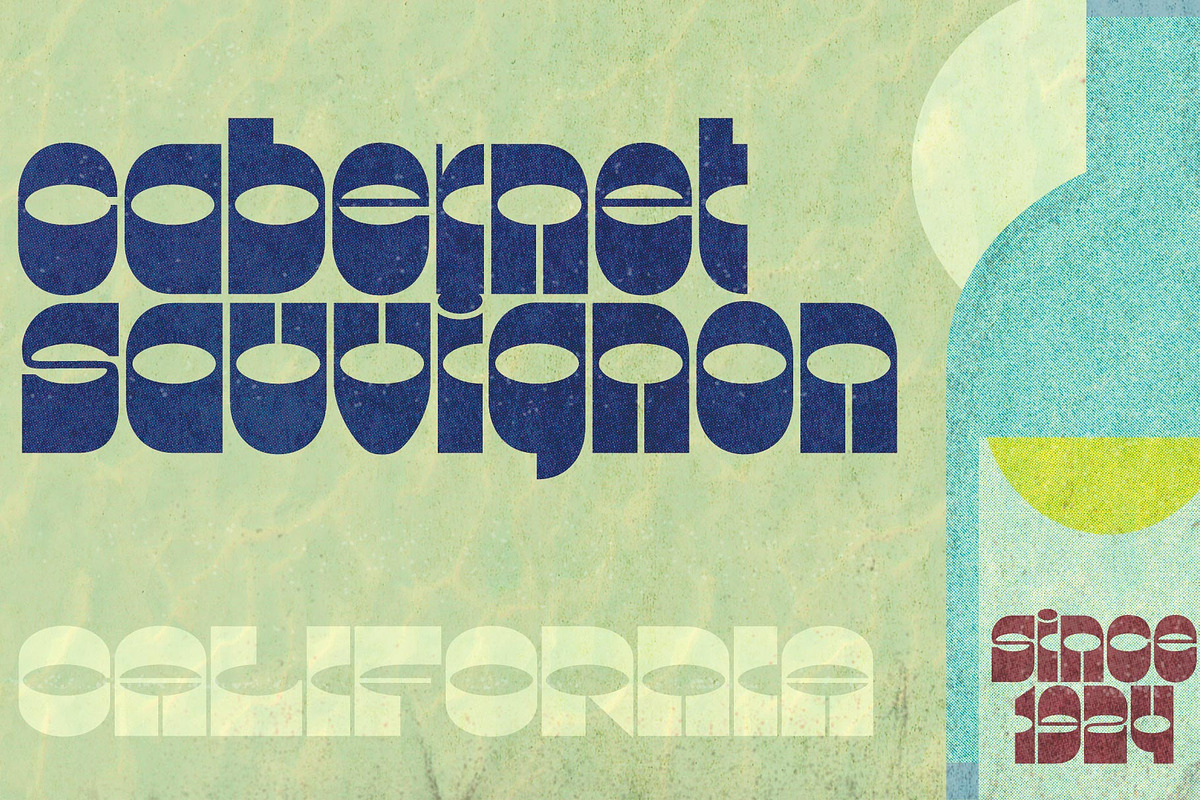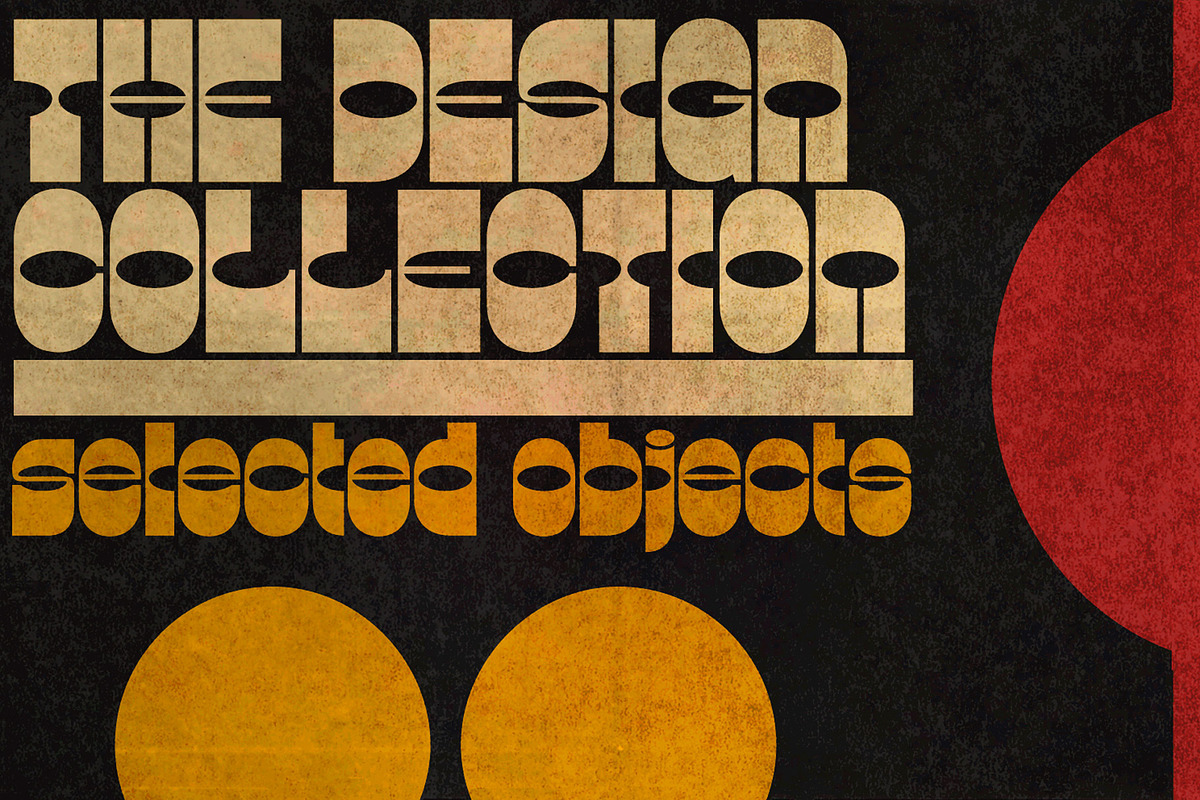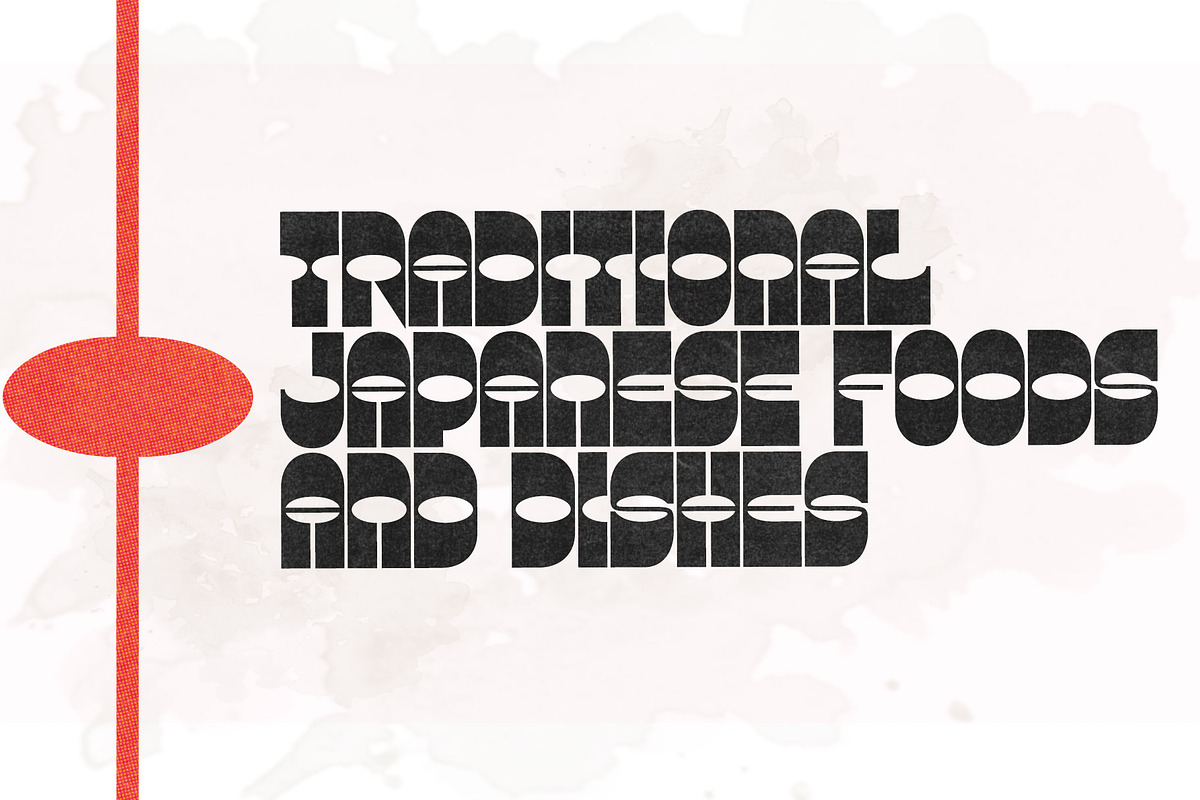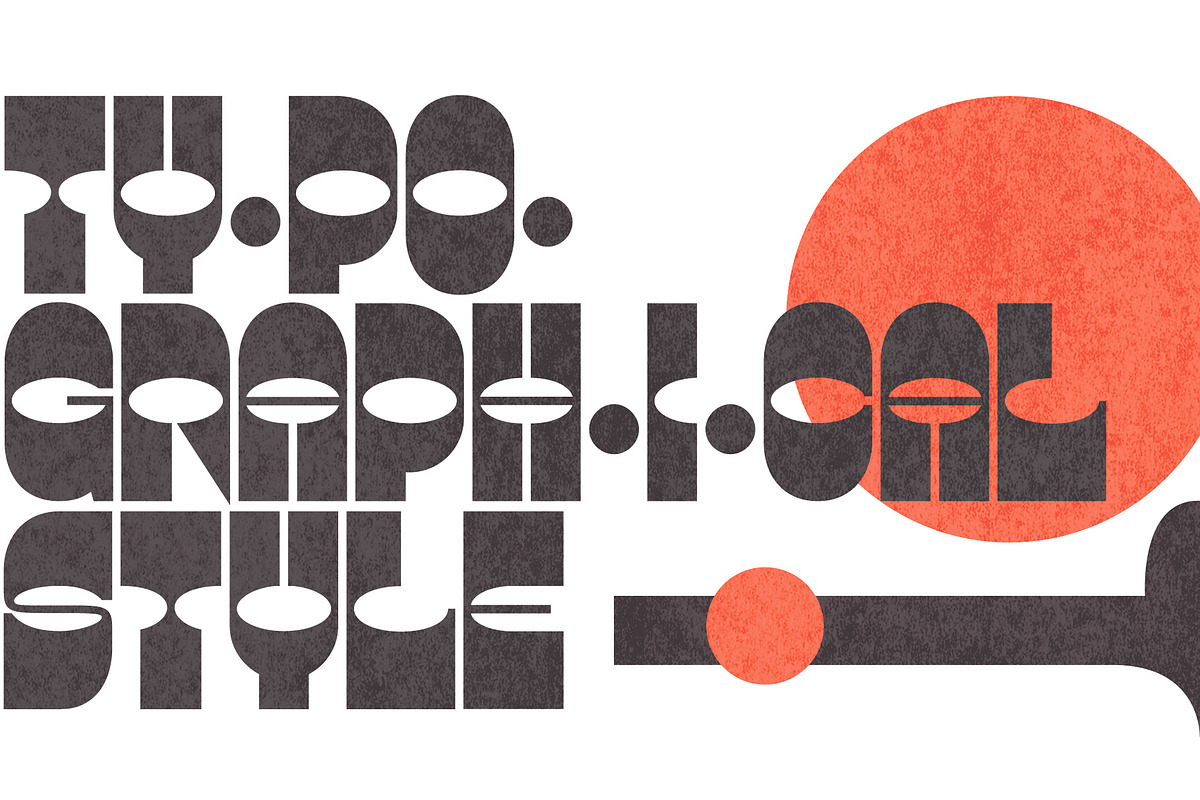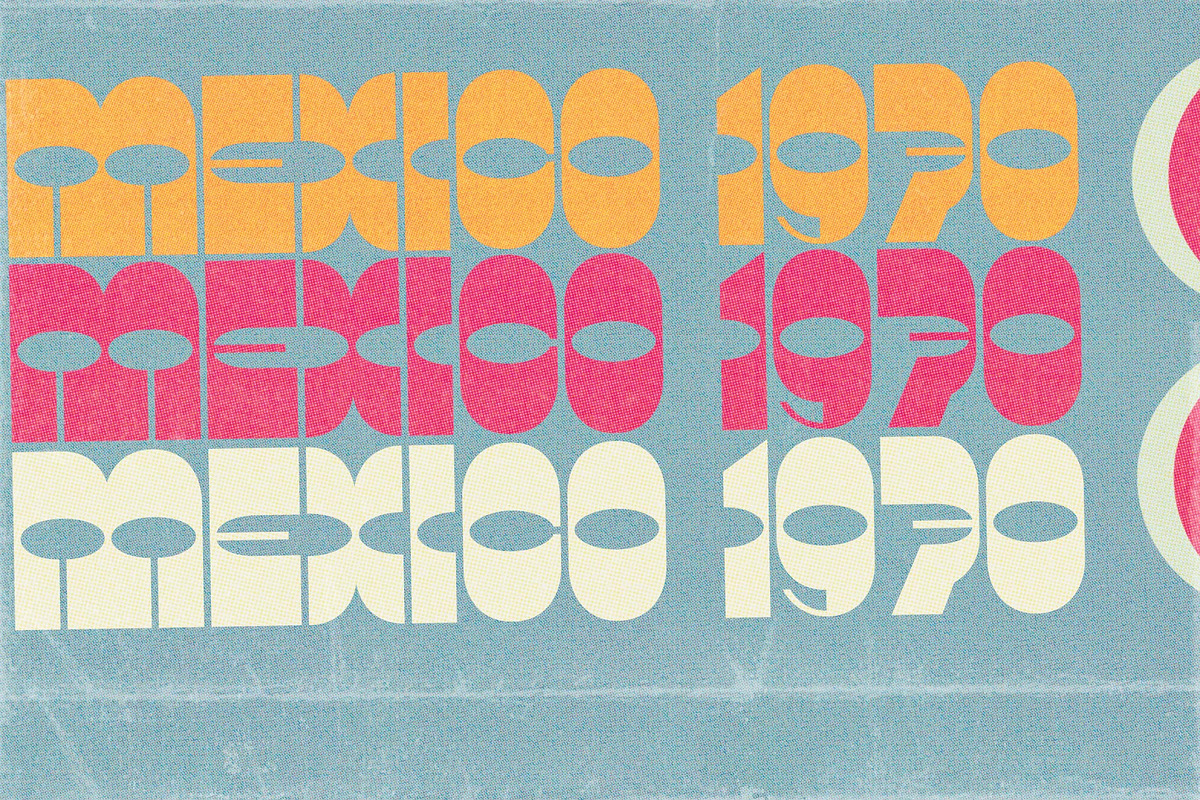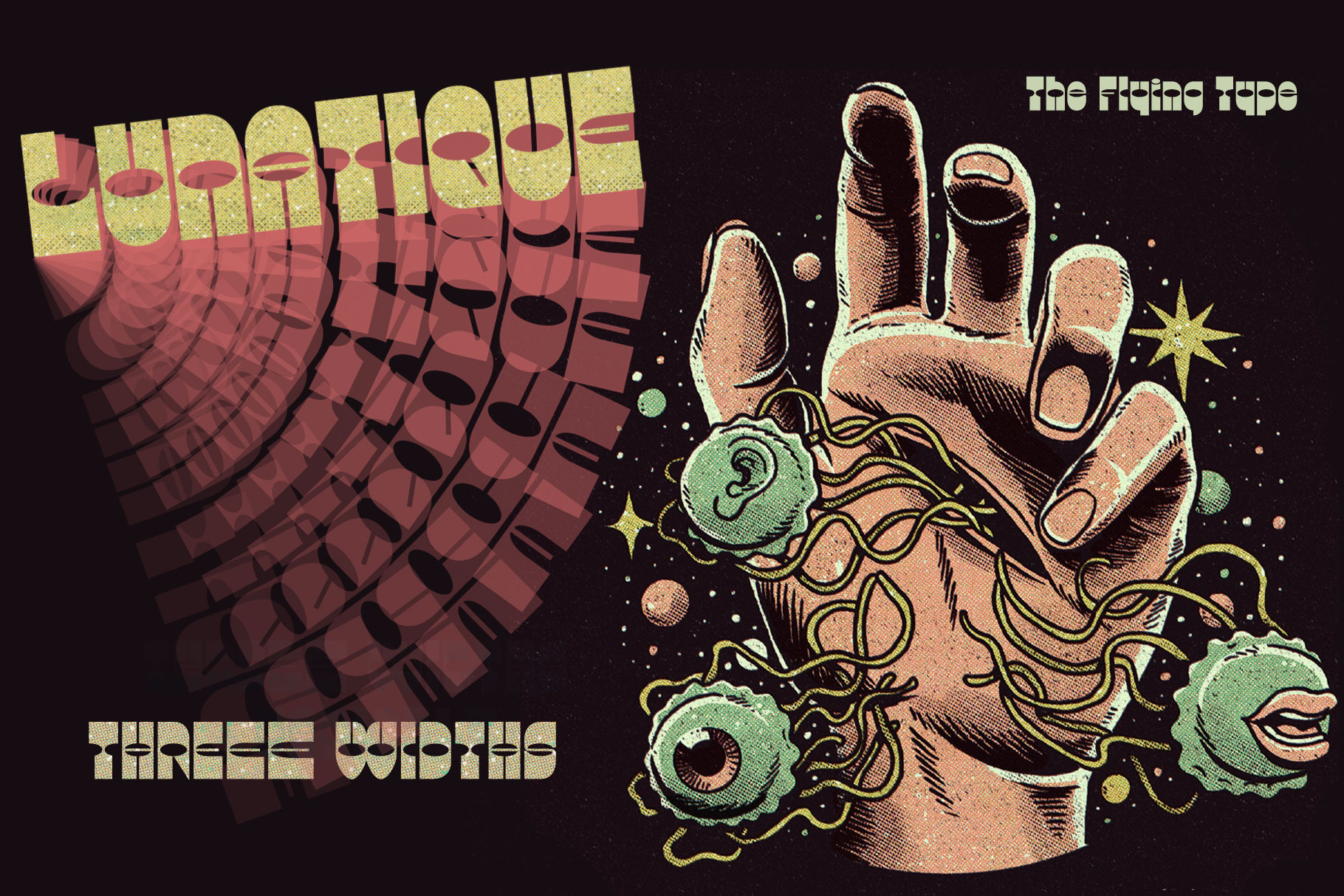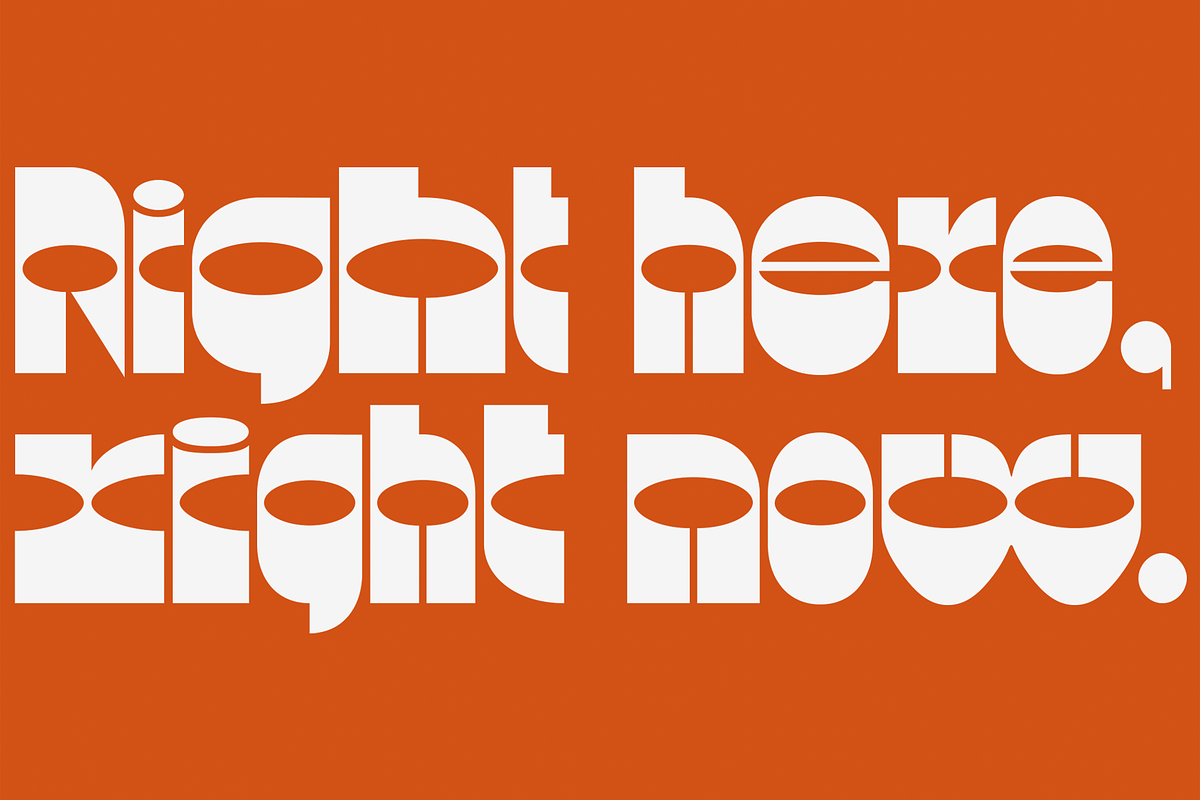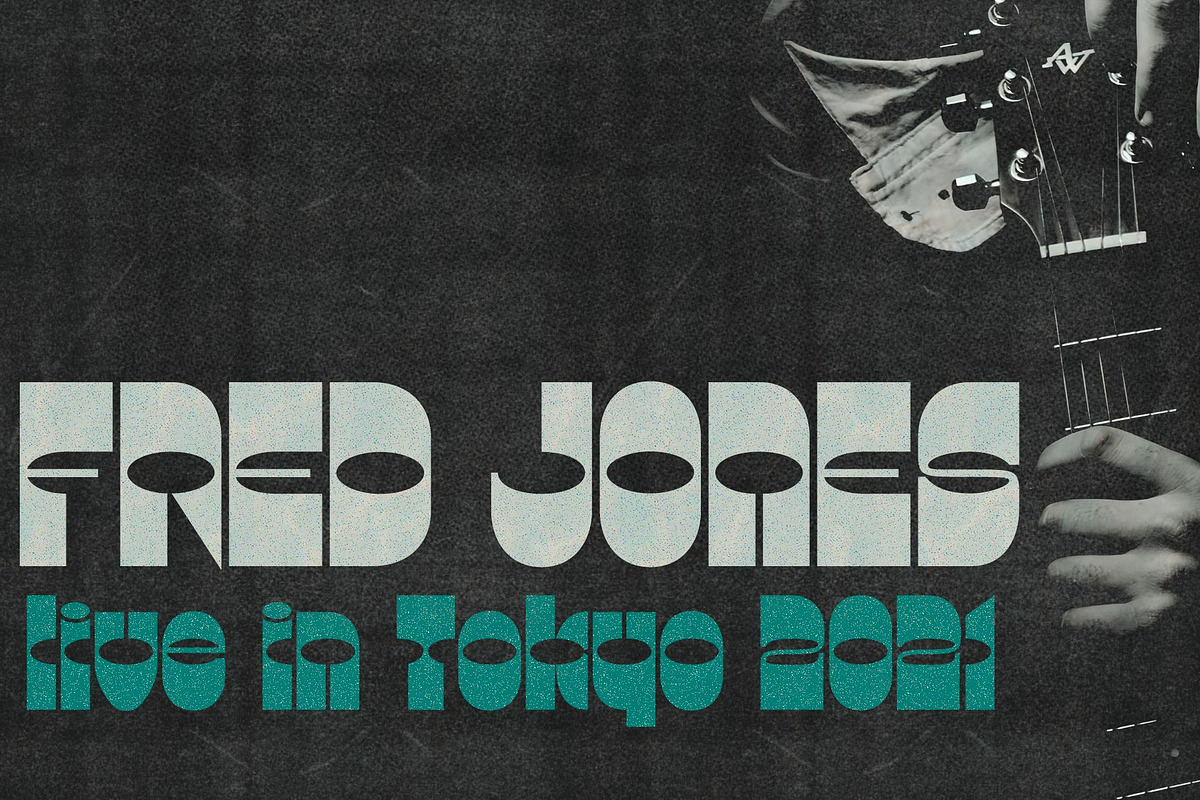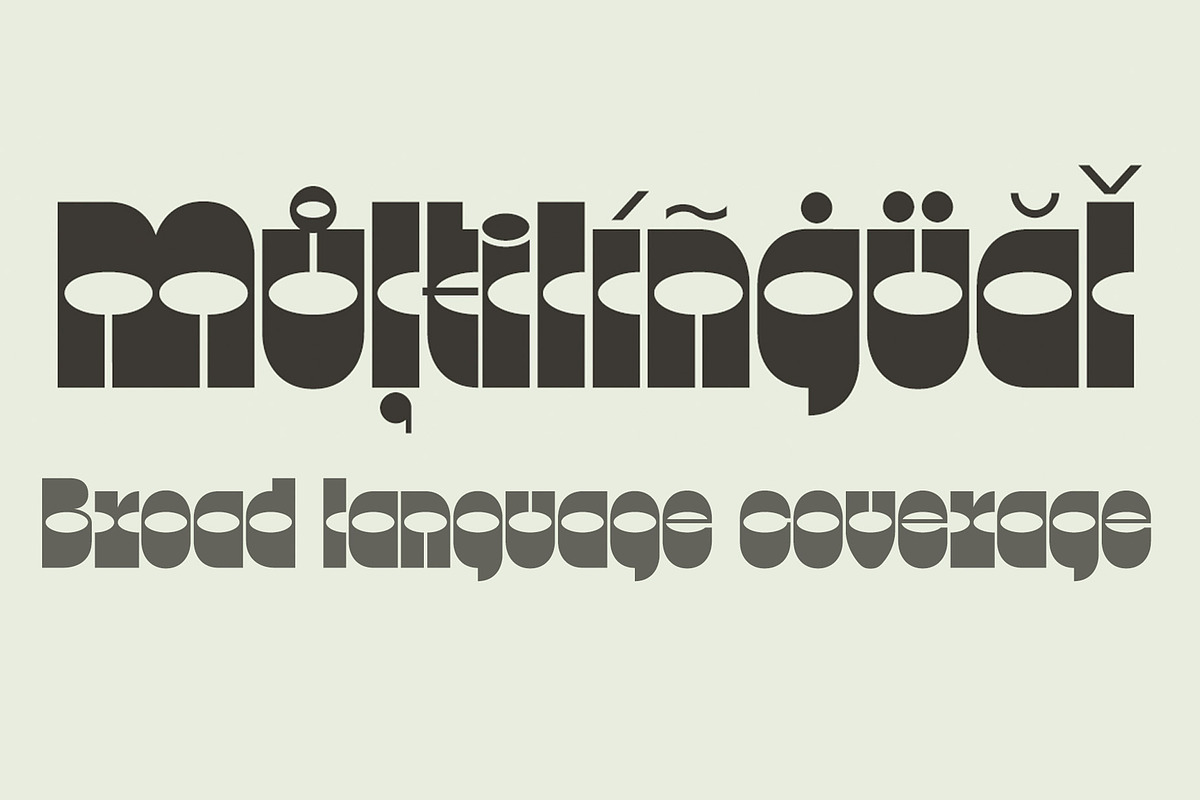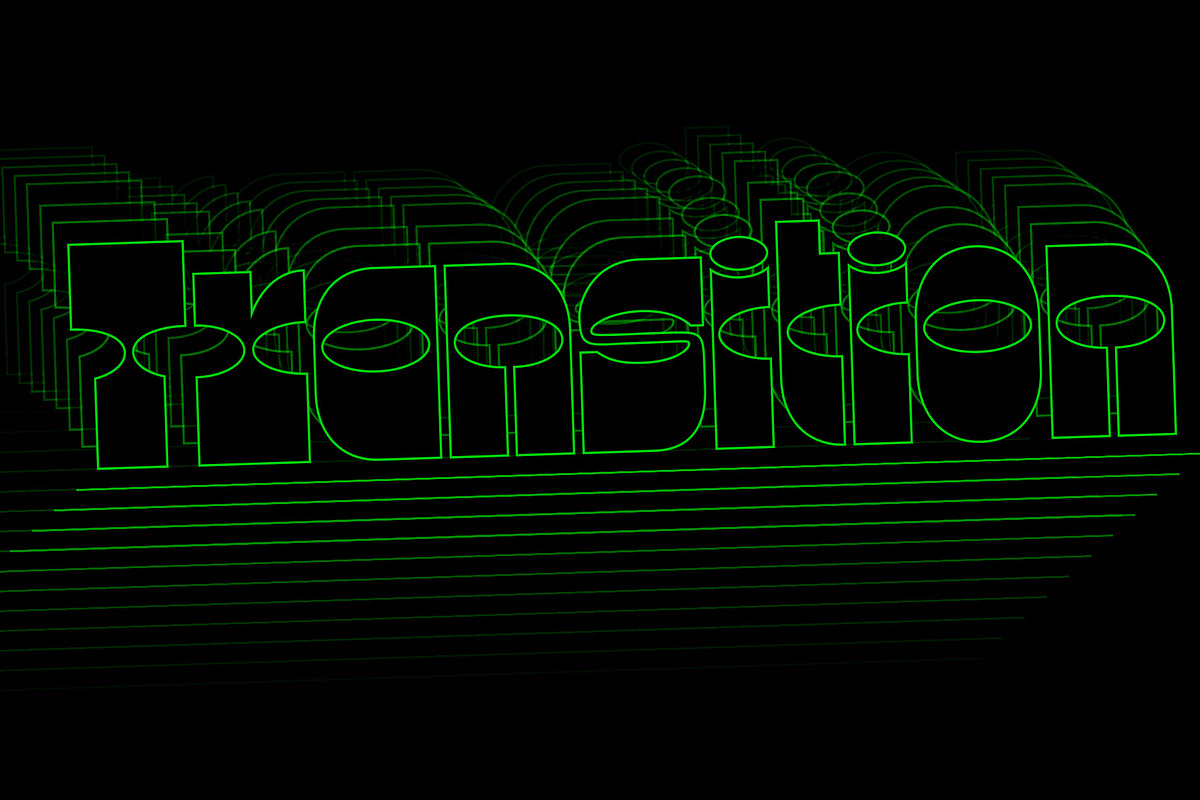
Lunatique | Three retro fonts
Lunatique is a highly decorative font, available in three widths, with extended language coverage as well as alternates for some glyphs. And quite a seventies flair, isn't it?
This font is inspired by Lucky typeface, designed in 1972 by André Pless for the Mecanorma permanent type contest. The style was later released as Letter-Press transfer sheets.
Transfer sheets... Sounds quite nice, definitely. But hey, these digital ones will be way smoother to use, you bet. Packaging, posters, book covers, applications are endless. Give them a go and make your text shine!